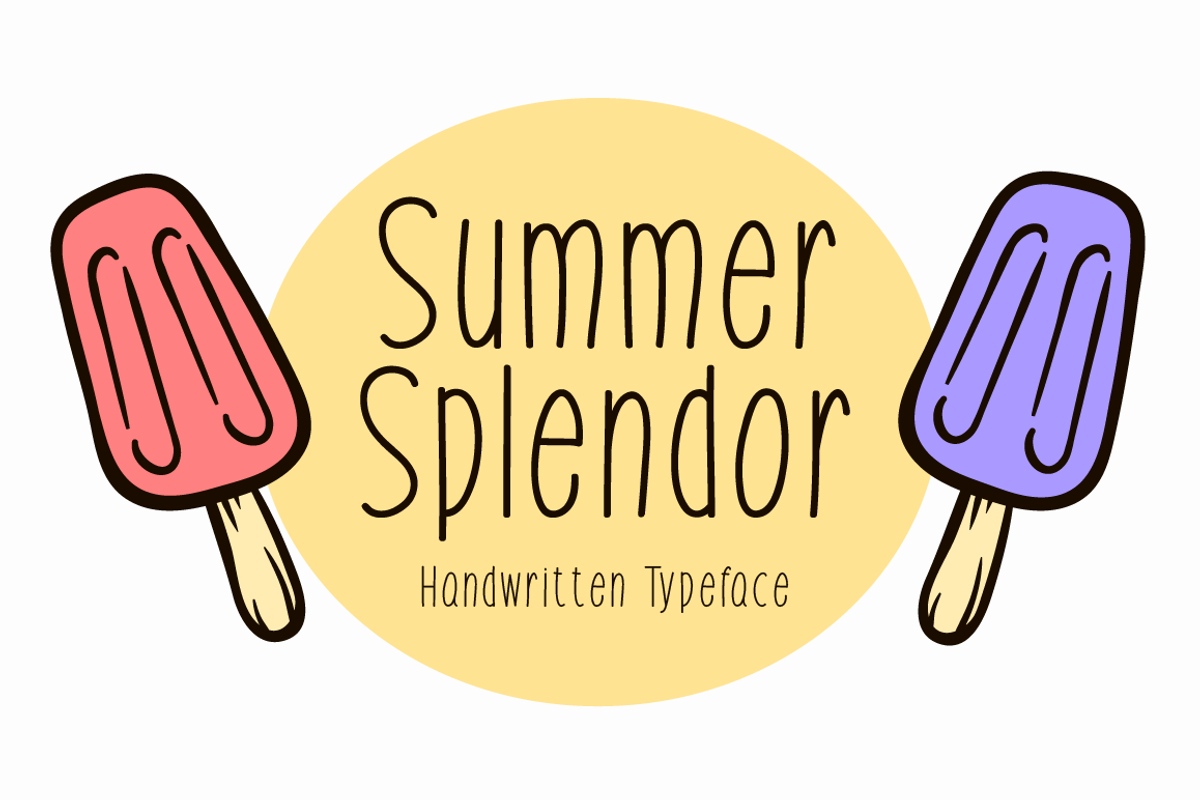
Summer Splendor Typeface Free Download is a vibrant and cheerful typeface that captures the warmth and joy of sunny days. With playful curves, lighthearted strokes, and a breezy style, this font is perfect for summer-themed branding, vacation promos, greeting cards, lifestyle blogs, and seasonal packaging.
Its casual yet elegant design brings a fresh and optimistic tone to any project—ideal for beachwear logos, tropical event posters, or Instagram graphics that need a splash of sunshine. Summer Splendor is all about fun, freedom, and effortless beauty.
Designers love Summer Splendor for its versatility and uplifting personality. Want to brighten up your next design? Download Summer Splendor Typeface Free Download and infuse your typography with sunny vibes and radiant style.